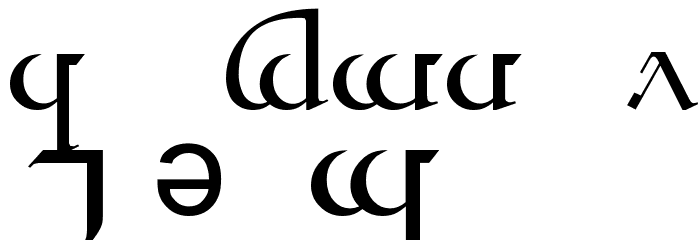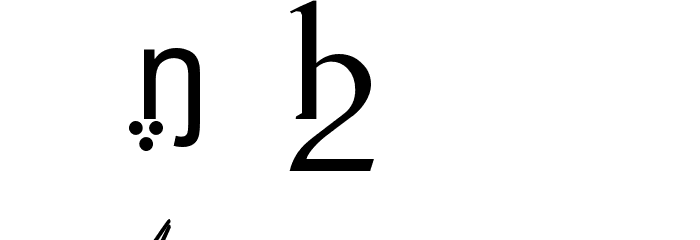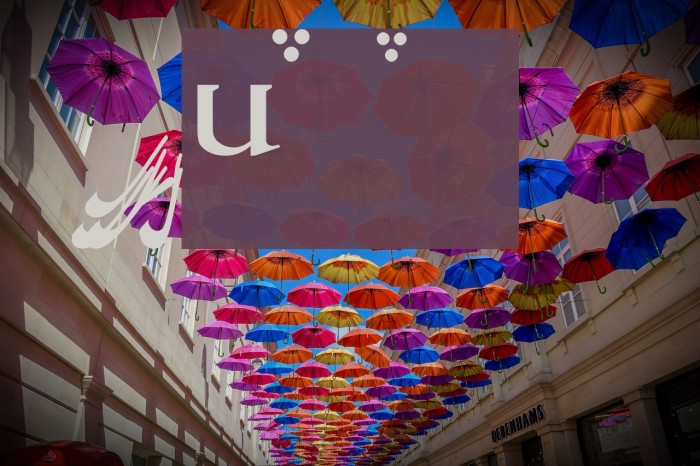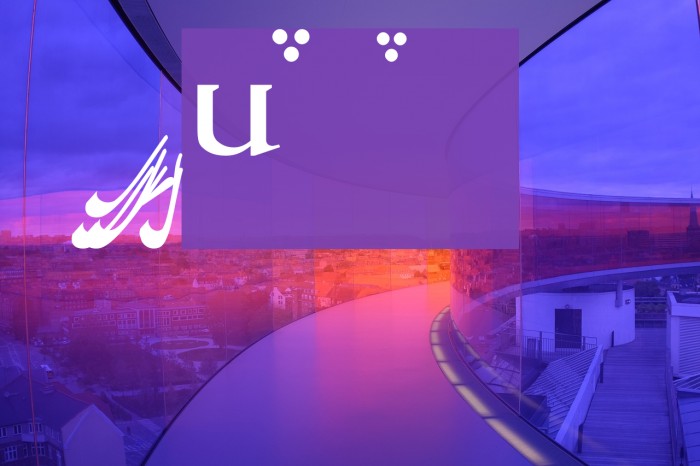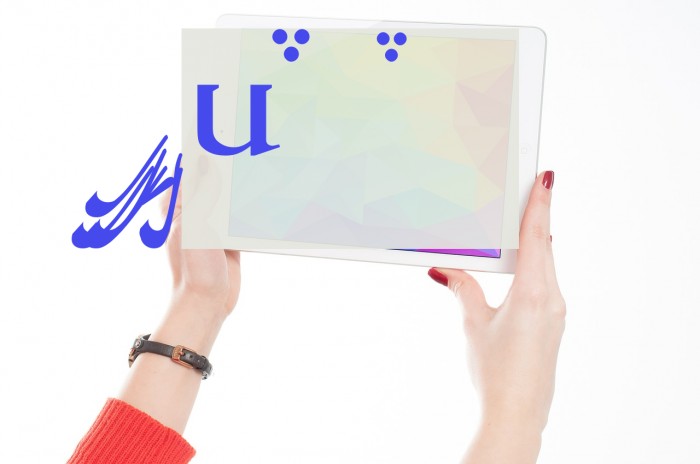
Tengwar Quenya A Font
This script is a fictional writing system with elegant, flowing characters that resemble a calligraphic style. The characters are intricate and feature a combination of curves and sharp angles, giving them a mystical and ancient appearance. The script is designed to convey a sense of fantasy and otherworldliness, often associated with fictional languages. It includes unique diacritical marks and symbols that enhance its decorative nature, making it visually captivating and suitable for artistic and thematic projects.
A decorative, calligraphic script with a mystical and ancient appearance.
- Proposed Projects: Ideal for fantasy-themed projects, book covers, movie titles, and role-playing games.
- Use Case: Logos, Titles, Artistic projects